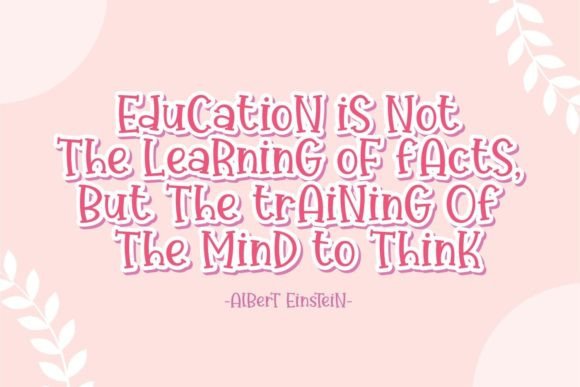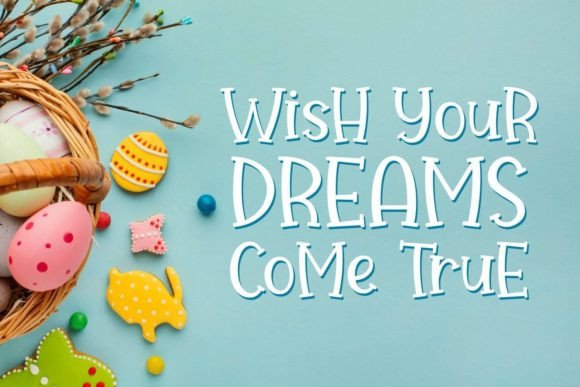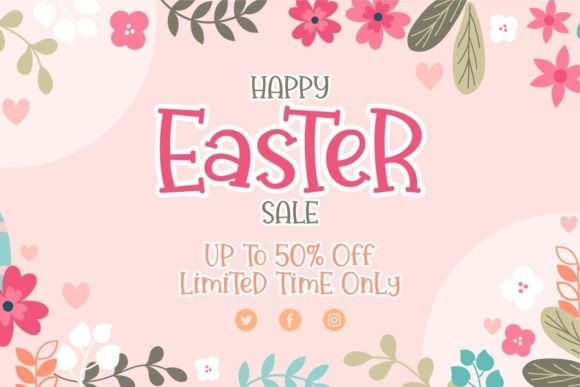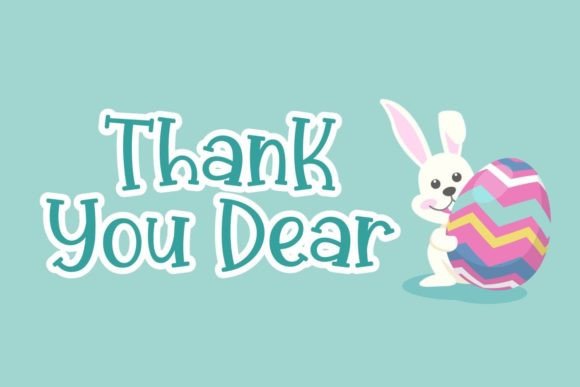
Spring into Creativity with the Cheerful Bunny Font
As the snow melts away and Easter approaches, I find myself itching to create something new and fun. There’s something about this time of year that sparks my imagination, and I’m sure I’m not alone in feeling this way. Whether it’s decorating the house, planning a party, or simply sending a thoughtful gift to loved ones, Easter is a time for joy and celebration.
That’s why I’m excited to share with you the Cheerful Bunny Font, a delightful serif font that’s perfect for capturing the festive spirit of Easter. This charming typeface is ideal for creating Easter cards, decorations, door signs, wall art, t-shirt designs, and so much more. For designers, the Cheerful Bunny Font offers a valuable opportunity to add a touch of whimsy and personality to their projects, making it a must-have for any creative looking to add a little extra joy to their work.
- Unique Characteristics: Hand-drawn design with playful, whimsical feel, perfect for children’s books, greeting cards, and other creative projects
Review of Cheerful Bunny Font
I recently had the chance to work with the Cheerful Bunny Font, and I must say it’s a fun and whimsical addition to any design project. ✨ One thing that stands out is the friendly and approachable vibe it gives off. The bunny character is endearing and makes for a great conversation starter. ✨ The font is also highly customizable, making it easy to adjust the color, size, and style to fit your project’s needs.
However, there are a few limitations to keep in mind. ⚠️ The font’s design can feel a bit too playful for some projects, and the bunny character might be distracting if used in a more serious context. Additionally, the font’s readability can be affected by the boldness of the design elements.
- Whimsical and playful design
- Endearing bunny character
- Easy to adjust color, size, and style
- Design may be too playful for serious projects
- Bunny character may be distracting in certain contexts
- Readability can be affected by bold design elements
Overall, I think the Cheerful Bunny Font is a great choice for projects that require a lighthearted and playful touch. With a little creativity, you can use it to add a unique and eye-catching element to your designs.
Getting the Most Out of Cheerful Bunny Font
To get the most out of the Cheerful Bunny Font, use it in conjunction with bright and pastel colors to create a playful and whimsical design. You can also use it to add a touch of personality to your branding or marketing materials.
The Cheerful Bunny Font is perfect for:
- Branding and marketing materials for kids’ products or services.
- Whimsical and playful designs